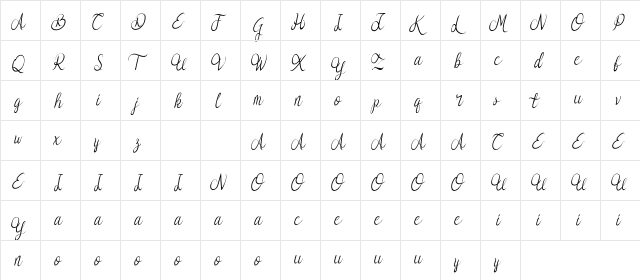
Syllia Demo Italic
Design Context for Syllia Demo Typeface
Syllia Demo is a composed and adaptable typeface that performs quietly and consistently across a wide range of design contexts. The dynamic lean of this cut emphasises speed and emphasis in any layout.